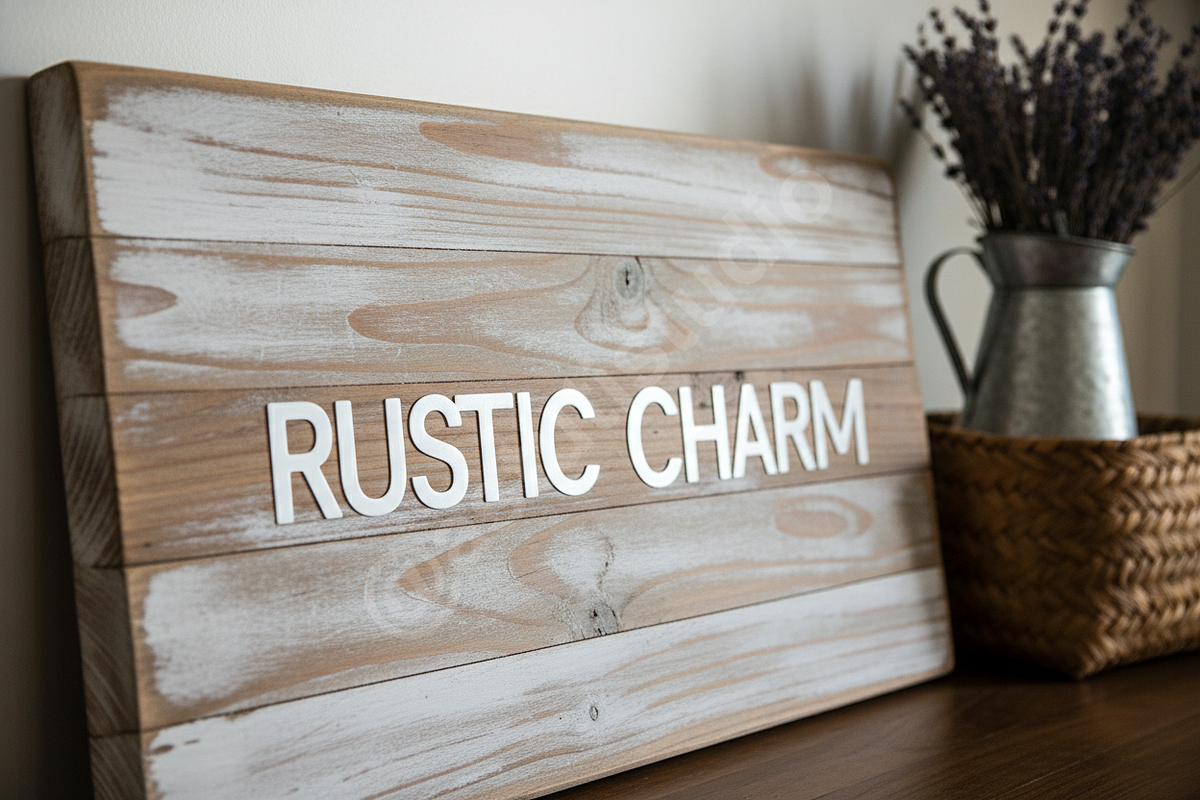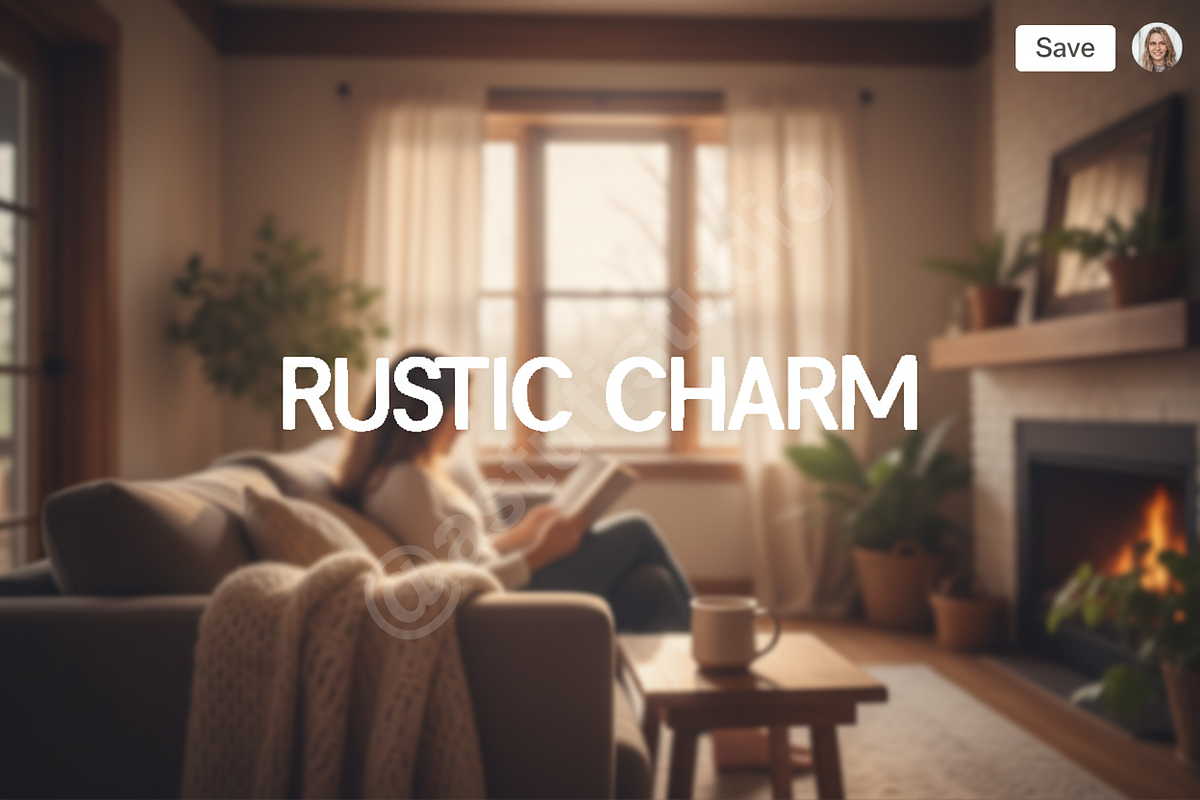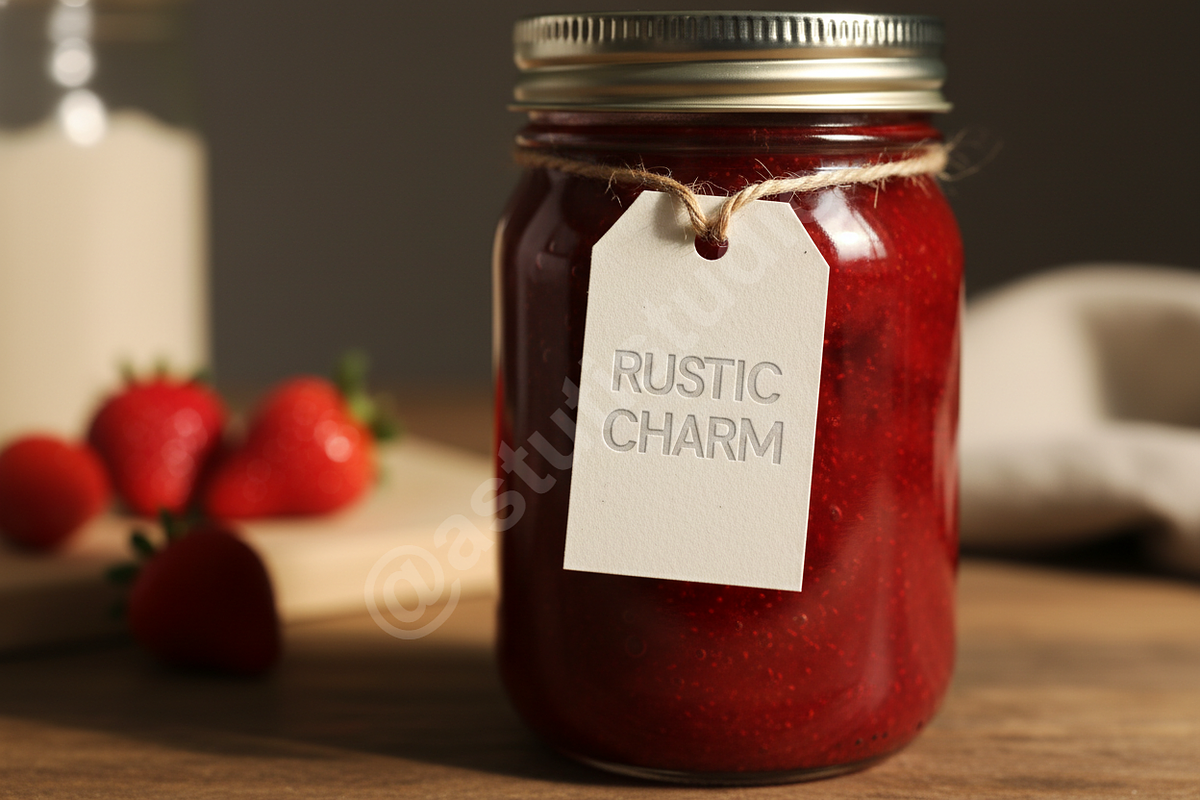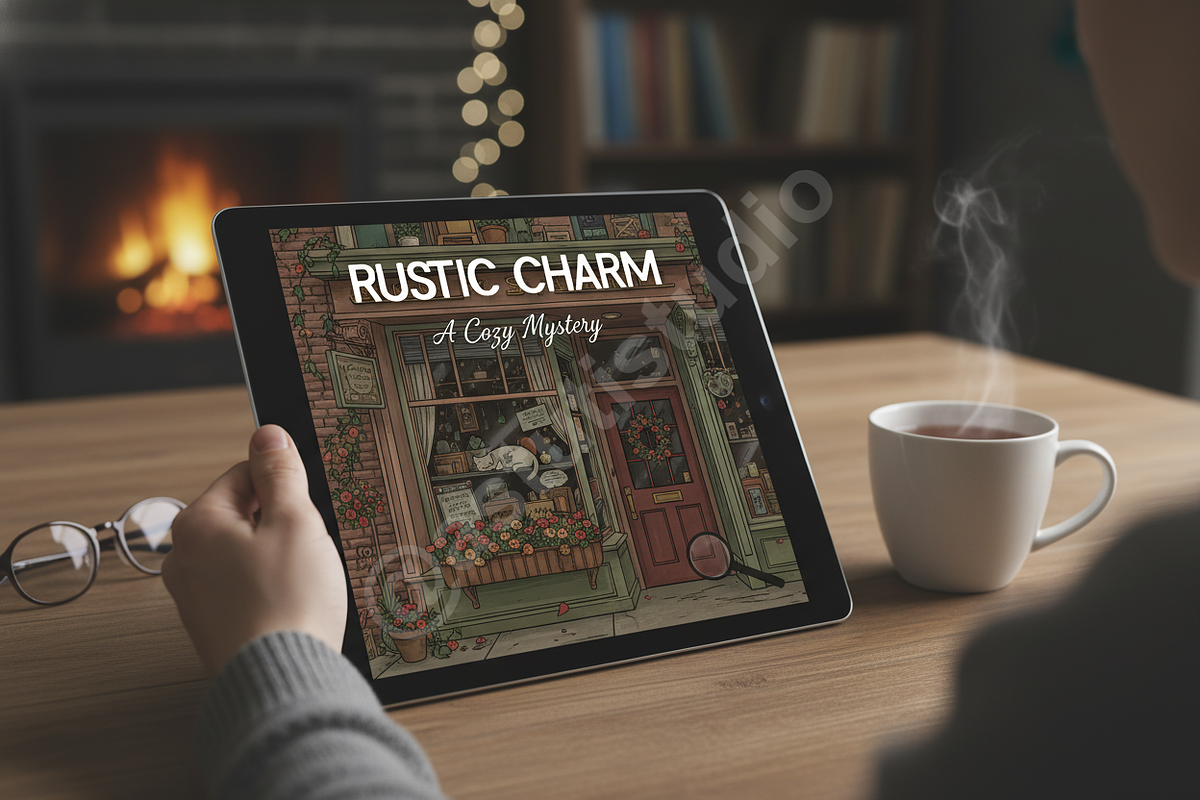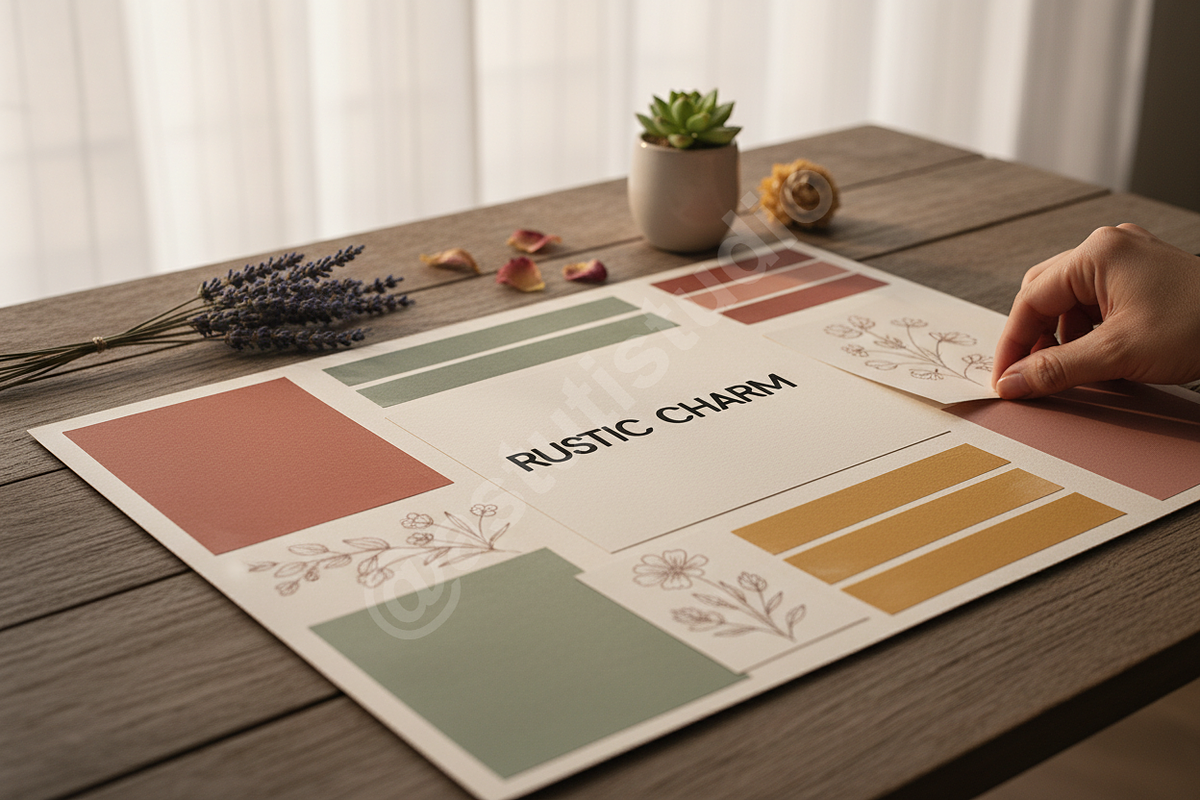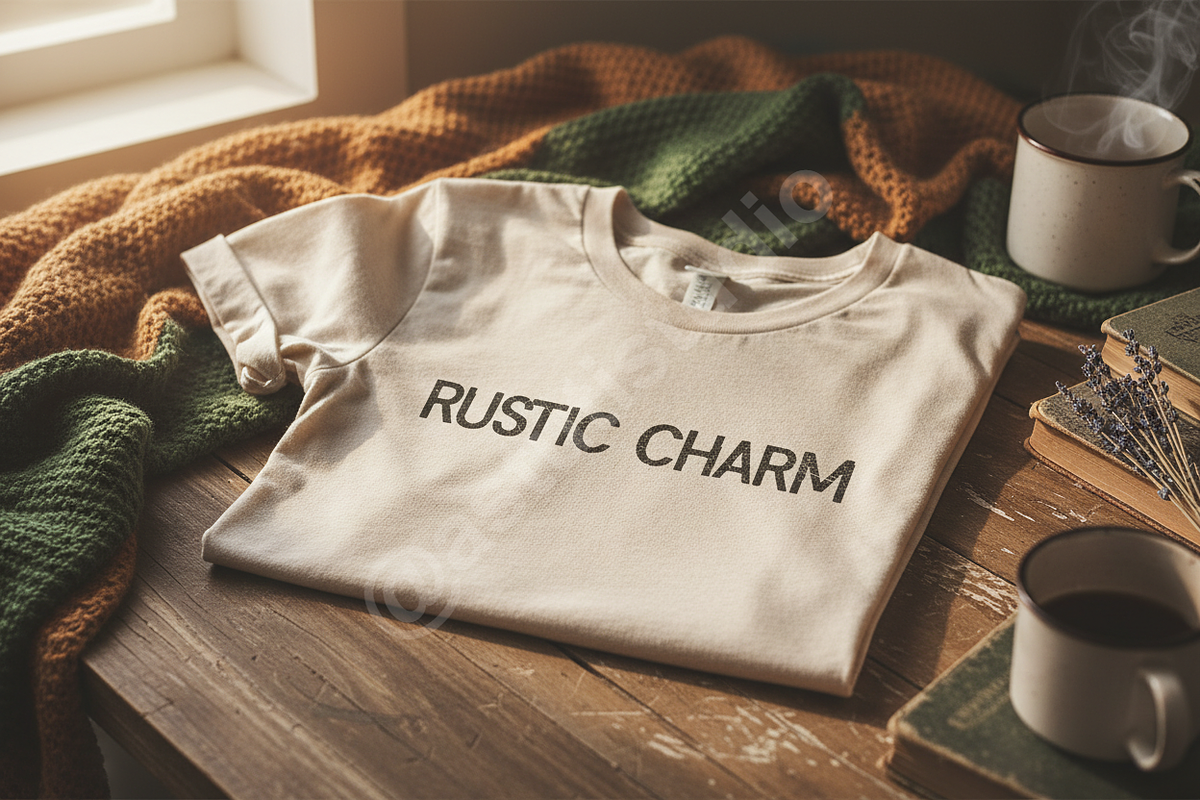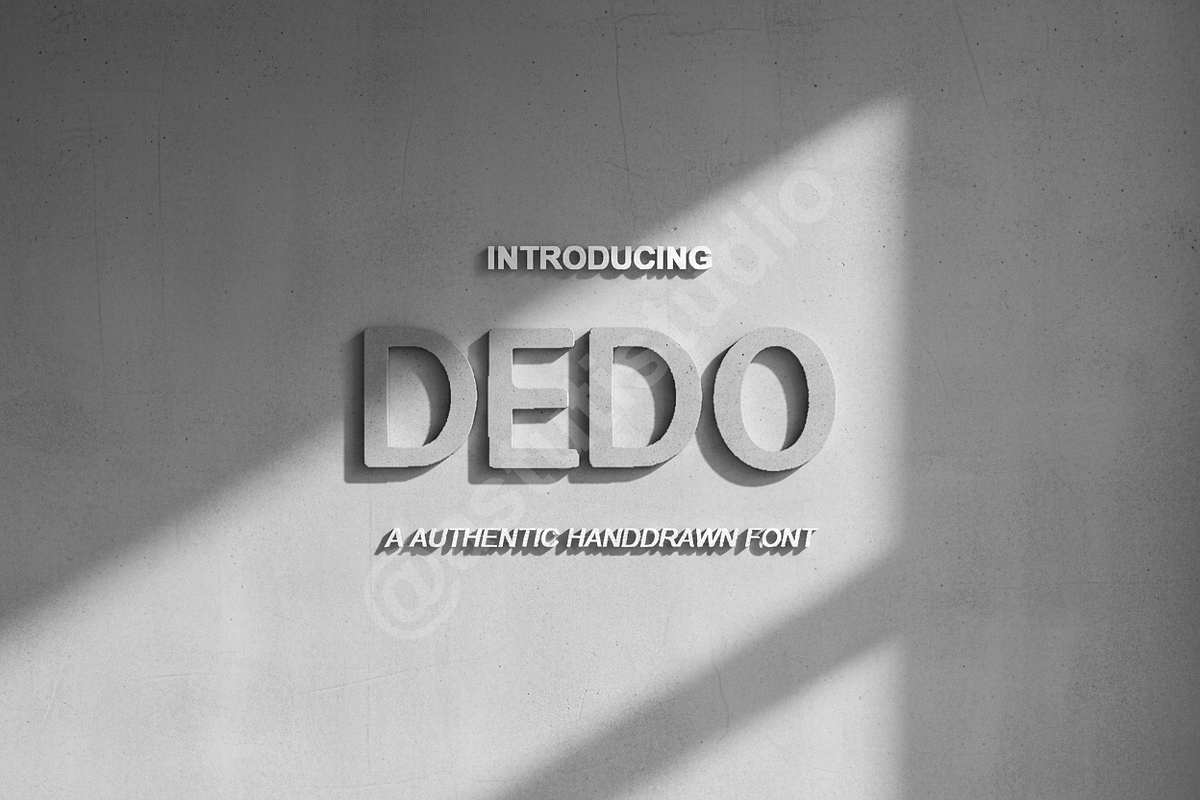
Dedo | Luxury High-Contrast Serif Ty
Dedo is a contemporary, high-contrast serif typeface crafted for utmost sophistication. It balances timeless elegance with sharp, modern precision, making it the definitive choice for projects demanding an elevated aesthetic. This font is perfectly engineered for luxury branding identity, prestigious editorial layouts, high-fashion campaigns, and impactful social media visuals where clarity and elegance are paramount.
--- KEY FEATURES ---
- Three meticulously designed weights: Light, Regular, and Bold, offering exceptional versatility across different design requirements.
- Full set of uppercase and lowercase letters, comprehensive numerals, and professional punctuation.
- Extensive multilingual support (Latin Extended A) to serve a global clientele.
- Advanced OpenType features, including standard ligatures and case-sensitive punctuation, ensuring seamless, polished typography.
- Optimized kerning and meticulous spacing for professional text setting at both display and body sizes.